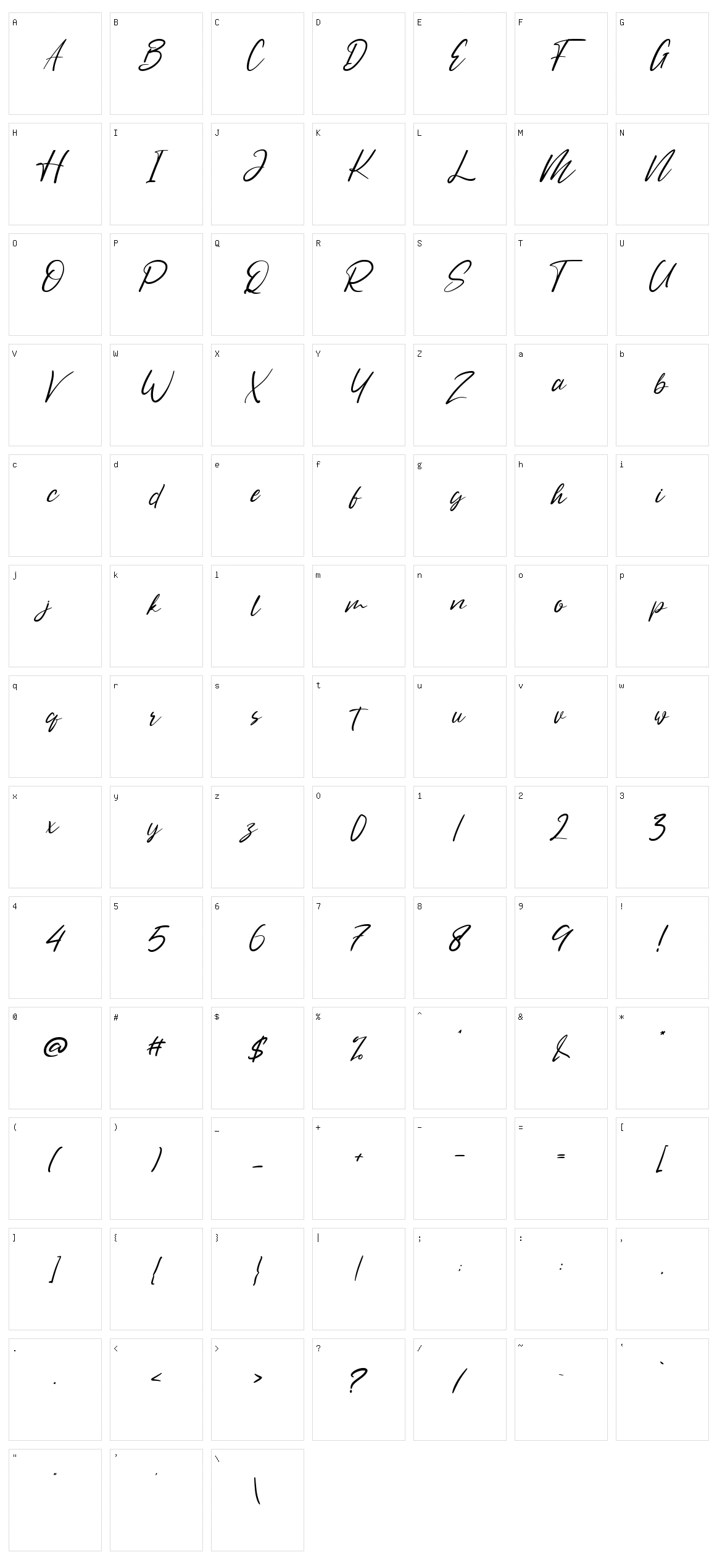
The free font Jathselim is carefully designed by StringLabs Creative Studio, showcasing a thoughtful balance of creativity and usability and falls under the Script font style. When you download the ZIP file, it contains only 70.85 KB of font files, making it lightweight and quick to download. Please review the license details below to understand permitted usage and distribution rights. If license information is not available, we recommend using this font for personal projects only or contacting the author directly for commercial usage permissions.